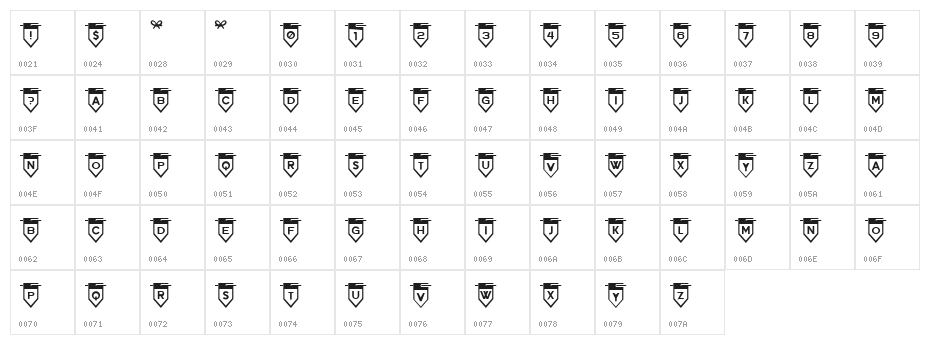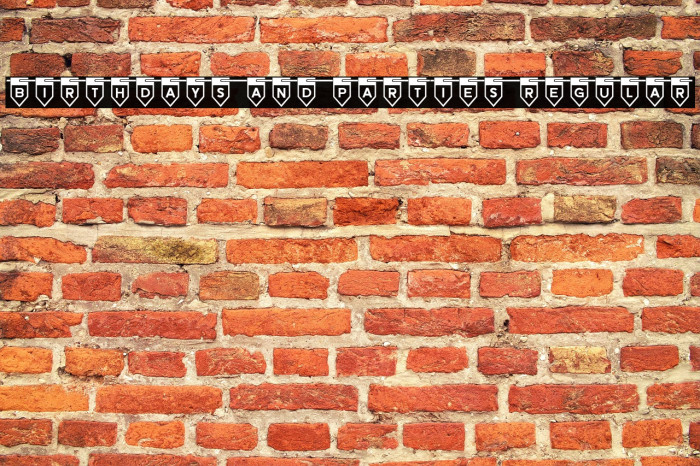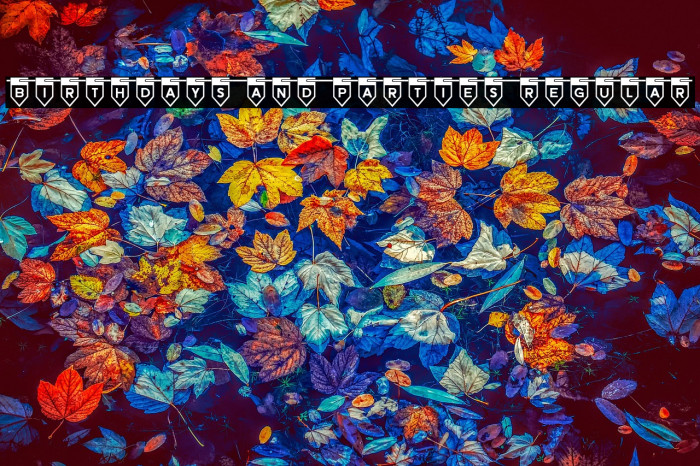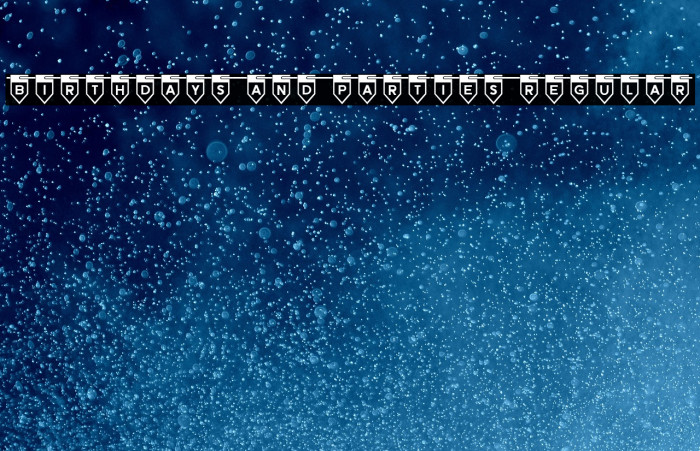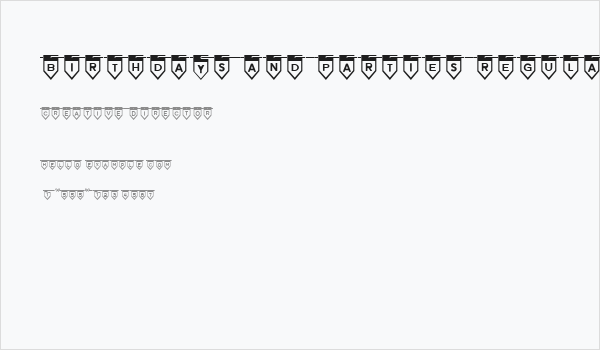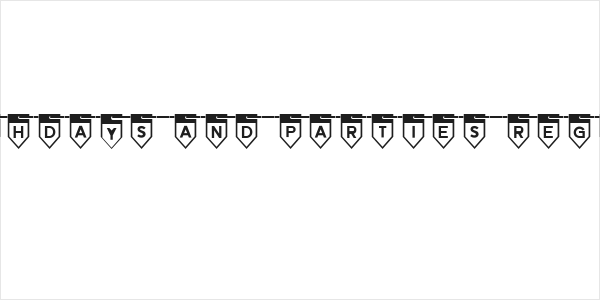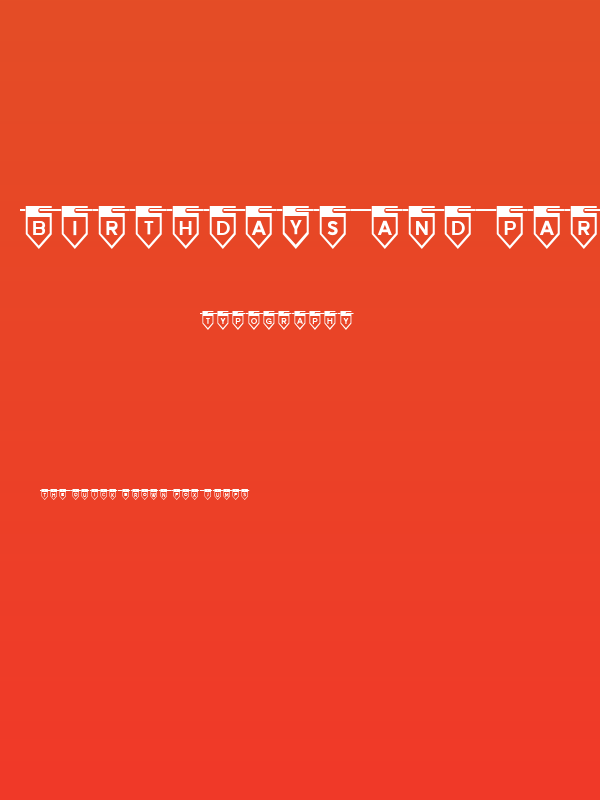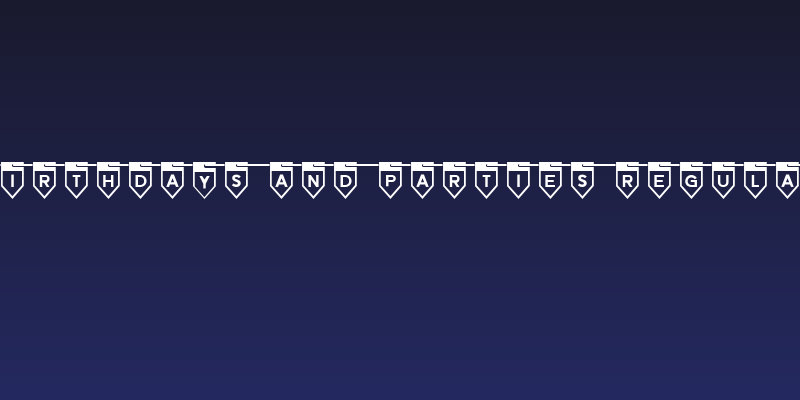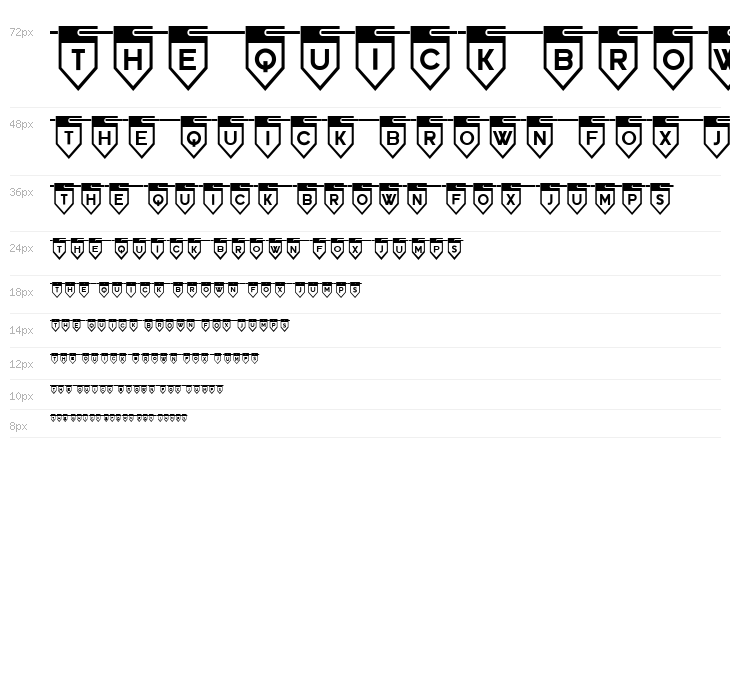
Birthdays and Parties Regular Font
Birthdays and Parties Regular Description
This font features a playful and decorative style, reminiscent of festive banners or bunting. Each character is enclosed within a flag-like shape, adding a whimsical and celebratory feel. The bold outlines and geometric shapes give it a structured yet fun appearance, making it ideal for party invitations or festive announcements. The uppercase and lowercase letters are consistent in style, with numbers and special characters also following the same design theme. The overall look is cohesive and visually engaging, perfect for creating a joyful and lively atmosphere in any design project.
| Proposed Projects | Perfect for birthday invitations, party banners, festive event posters, and celebratory greeting cards. |